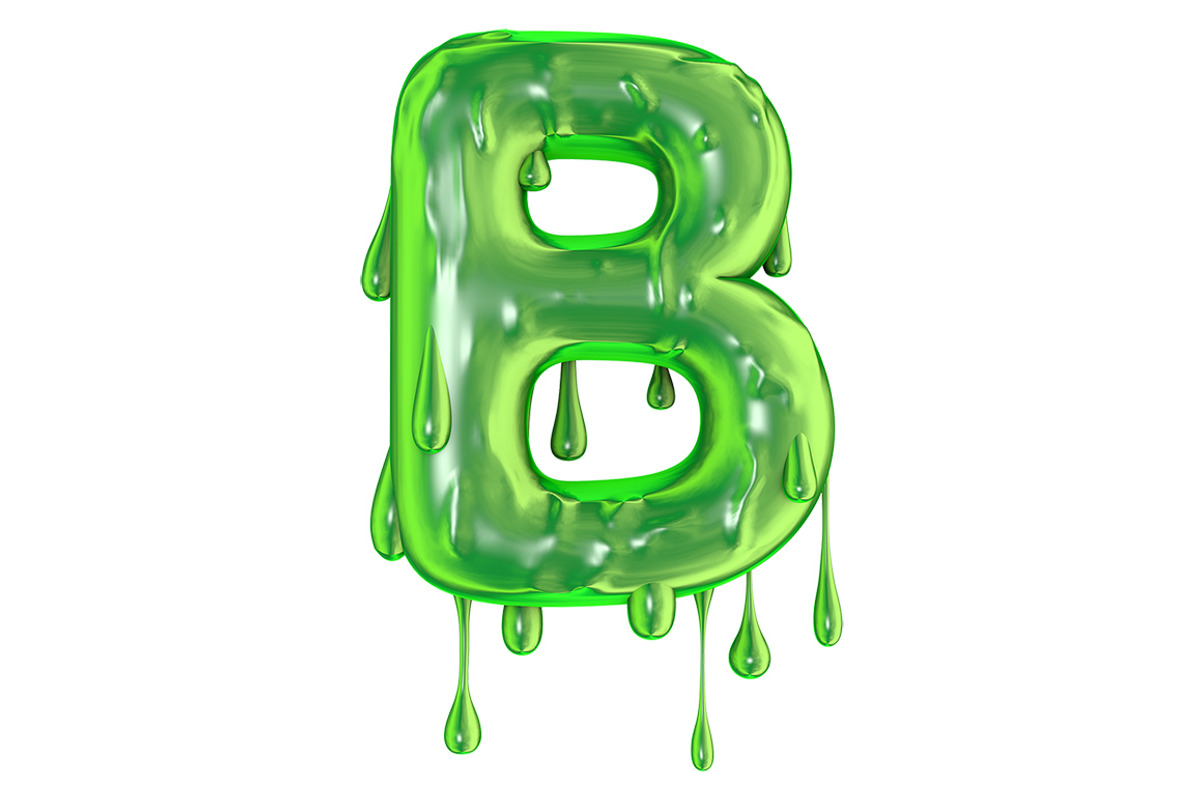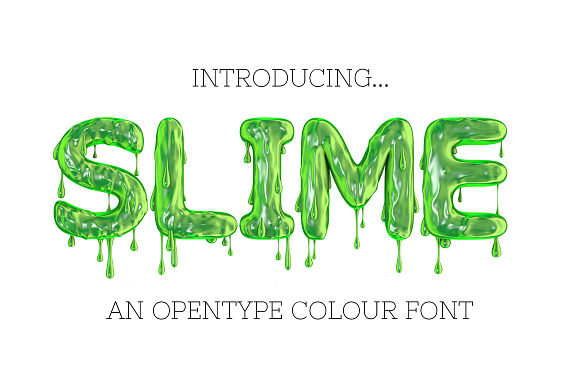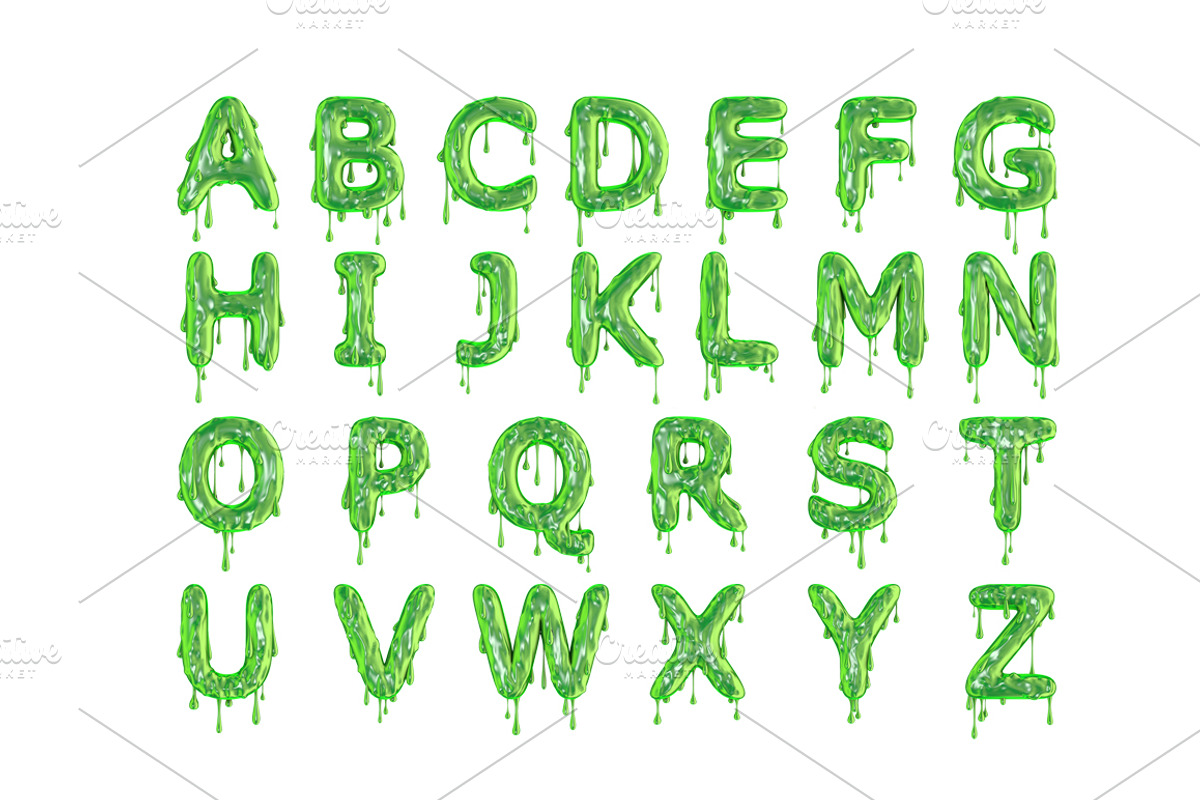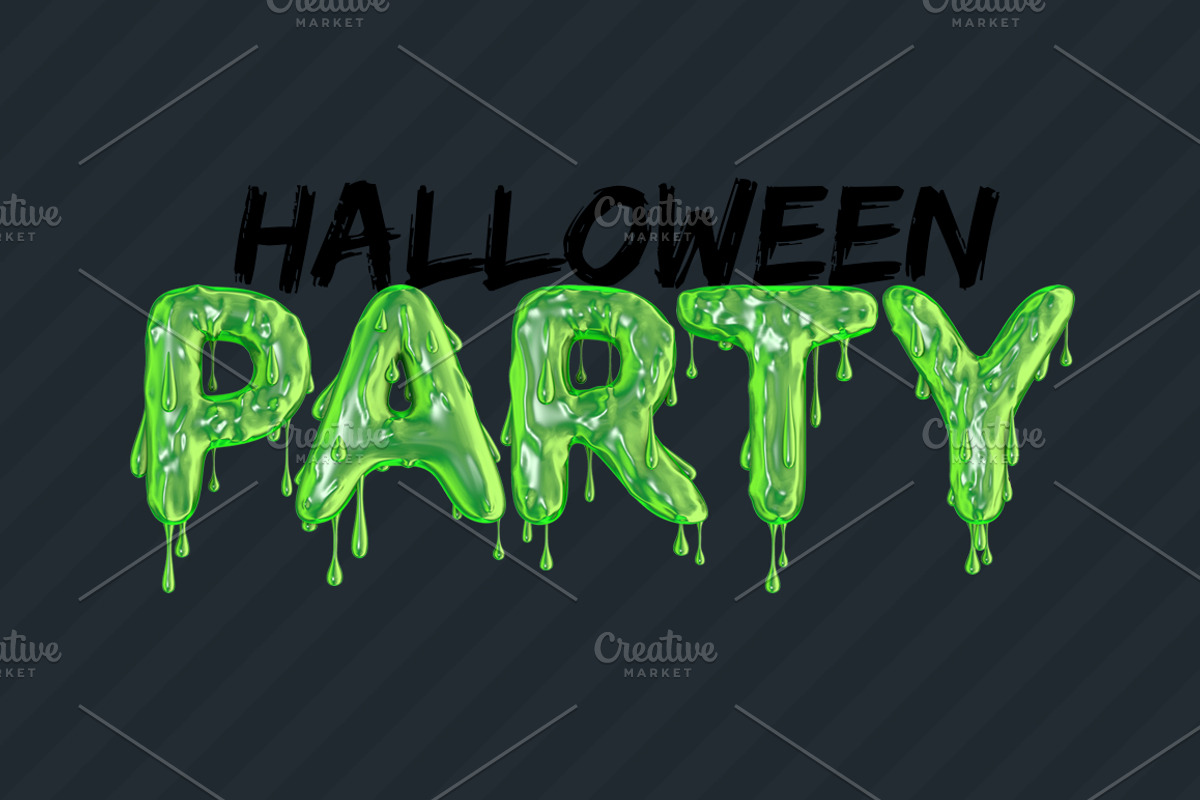
SLIME - OTF font & pngs
A spooky oozing welcome to SLIME
SLIME is a colour OTF font. Each letter has been created in 3D then turned into a simple to use font. Just download and start typing in slime green lettering. SLIME is perfect for spooky halloween party invites!